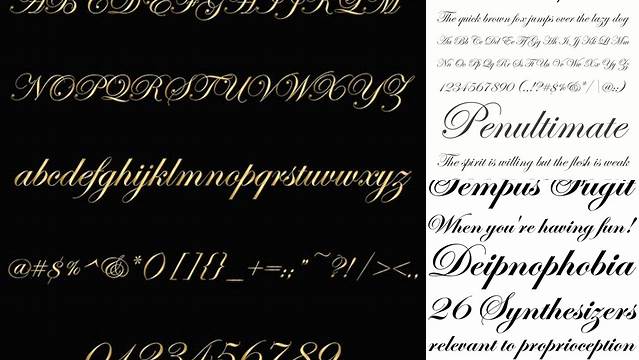
Hey guys! Ever stumbled upon a font that just screams elegance and class? Well, if you haven't, let me introduce you to Edwardian Script ITC! This font is a real gem, known for its beautiful, flowing script that can add a touch of sophistication to any project. Whether you're a designer looking to spice up a logo, a writer aiming to create a fancy invitation, or just someone who loves beautiful typography, Edwardian Script ITC is definitely worth exploring. In this article, we'll dive deep into everything you need to know about this fantastic font, including where to find it, how to use it, and why it's so darn popular.
What is Edwardian Script ITC? The Essence of Elegant Typography
Let's start with the basics. Edwardian Script ITC is a calligraphic script typeface designed by P. K. W. for ITC (International Typeface Corporation) back in 1980. The design of this font is inspired by the elegant handwritings of the Edwardian era, which was a period known for its grace, style, and opulence. The font itself features connected letterforms, elaborate flourishes, and a general sense of fluidity that makes it perfect for conveying sophistication and charm. Think of it like the black tie of fonts: it instantly elevates any project. The Edwardian Script ITC font family is one of those classic designs that have stood the test of time. Its popularity is due to its versatility and the fact that it's immediately recognizable. Its character is reminiscent of old movie posters, fancy restaurant menus, and high-end invitations. The unique design of the letters, with their connecting strokes and decorative swirls, gives it a distinctive look that sets it apart from other script fonts. The Edwardian Script ITC font is more than just a collection of letters; it's a statement. It is a statement of style, sophistication, and a nod to a bygone era of elegance. The typeface has a rich history, and it is still popular today, which is a testament to its enduring appeal. Its use extends to a variety of applications, from invitations and greeting cards to branding and advertising materials. It is especially effective in projects where a touch of class or a vintage feel is desired. The font's flowing lines and decorative flourishes make it an ideal choice for creating visually appealing designs that capture attention. The design of Edwardian Script ITC is often associated with romance, nostalgia, and timeless style. The elegant curves and artistic details of this font evoke a feeling of grace and refinement. The Edwardian Script ITC font is a favorite among designers and creatives. Because the font has a versatile design, it can be adapted to various creative projects. The font has been used in a wide range of applications, including wedding invitations, restaurant menus, and product branding. Its ability to create a sense of sophistication and classic charm makes it a popular choice for many individuals and organizations seeking to enhance their visual communication.
This font's inherent beauty lies in its ability to mimic the flow of handwriting. Each letter appears to dance with the next, creating a seamless and visually appealing composition. It’s this quality that makes it so well-suited for a variety of applications, from formal invitations to elegant logos. The font's design elements, such as the elongated ascenders and descenders and the slight slant, contribute to its overall feeling of elegance and grace. The typeface is not just a collection of letters; it is a design piece. It is often used to create projects that need a vintage or nostalgic feel. This is especially true for projects that focus on historical or romantic themes. The font's elaborate letterforms are a visual treat that evokes an artistic feel, making it an excellent choice for projects that require visual appeal. Edwardian Script ITC has many uses in many industries; from the wedding industry, creating beautifully crafted invitations and announcements, to the food industry, where it is employed in creating restaurant menus and branding. The font can also be used in the fashion industry, where it is used to design logos and promotional materials. It is also used in the entertainment industry, where it can be applied to create movie posters, book covers, and other promotional materials. The font's timeless design allows it to be used in a wide array of projects across diverse industries. The font is versatile and can be adapted for use in a wide variety of design projects. Whether creating a logo, a website, or print materials, the Edwardian Script ITC font can significantly enhance the visual appeal of your project. The font's ability to convey sophistication and classic charm makes it a valuable tool for designers and creatives alike.